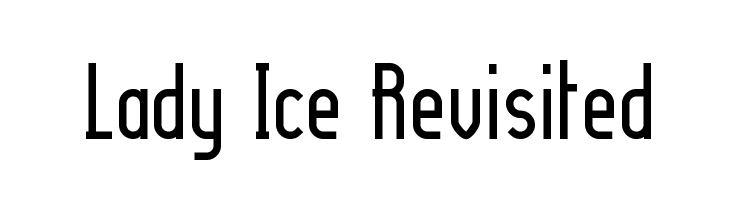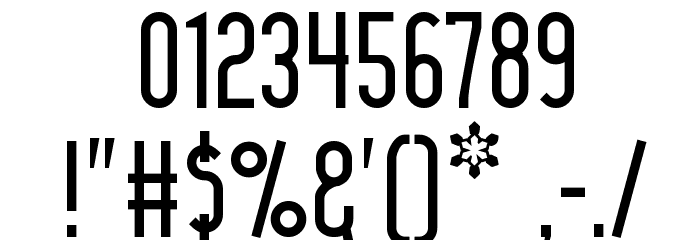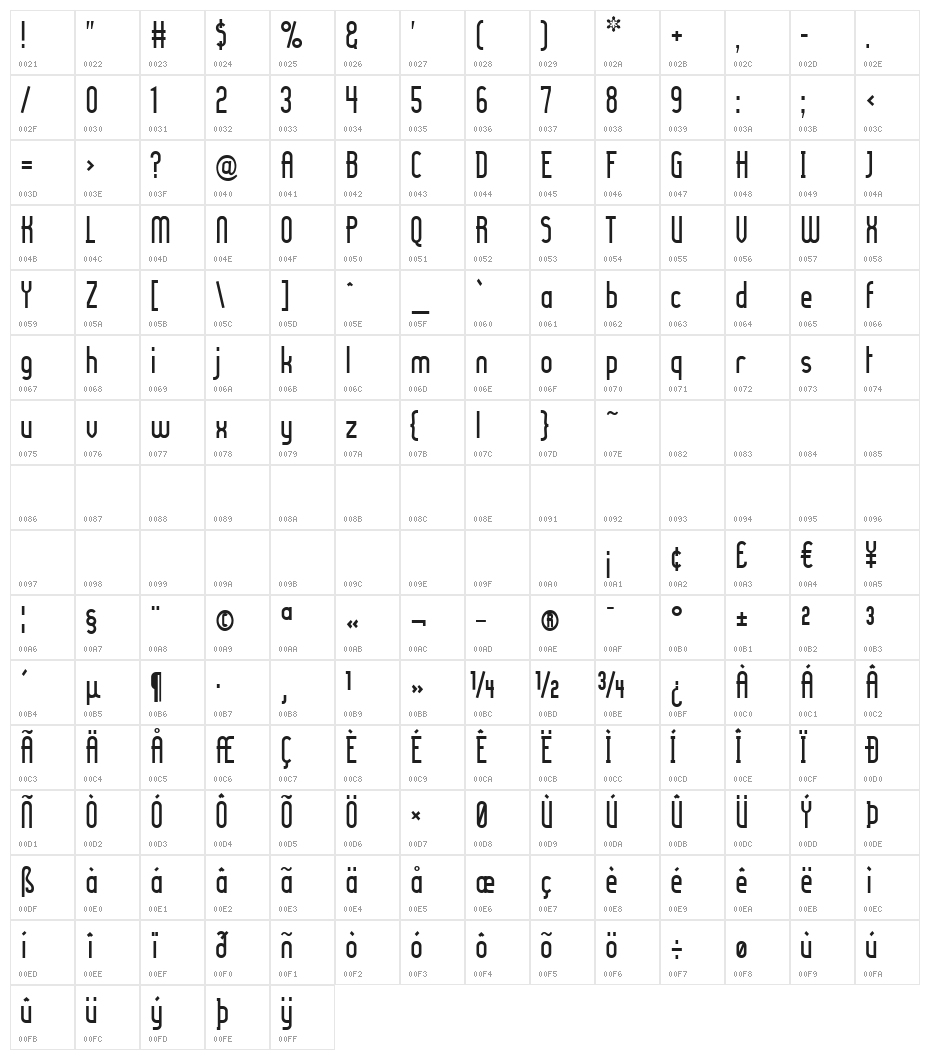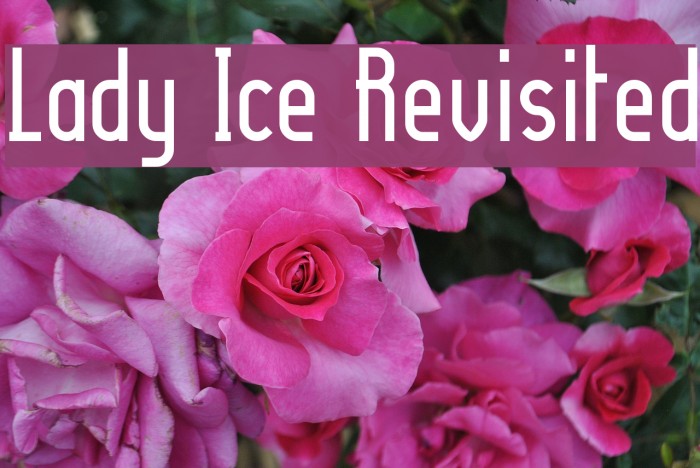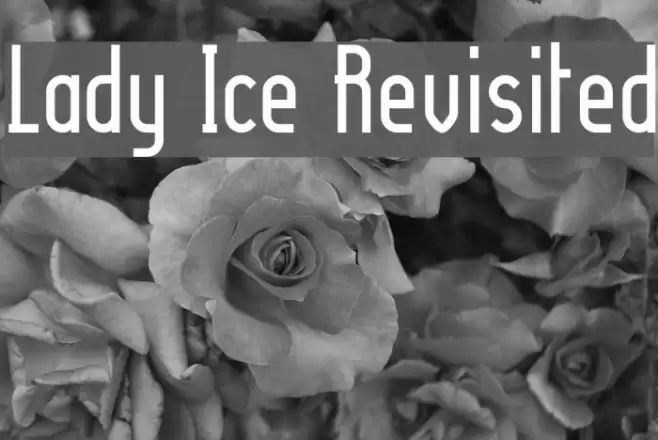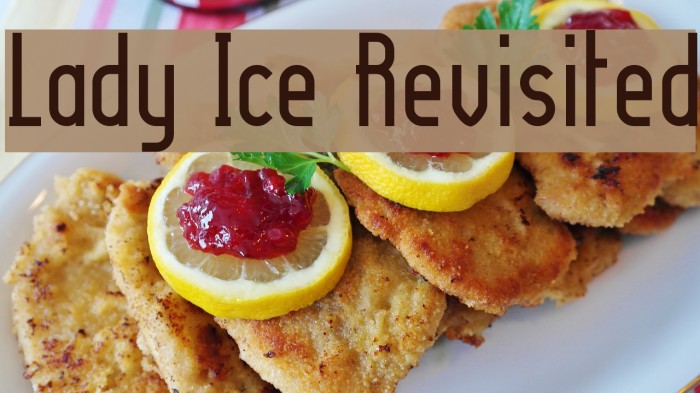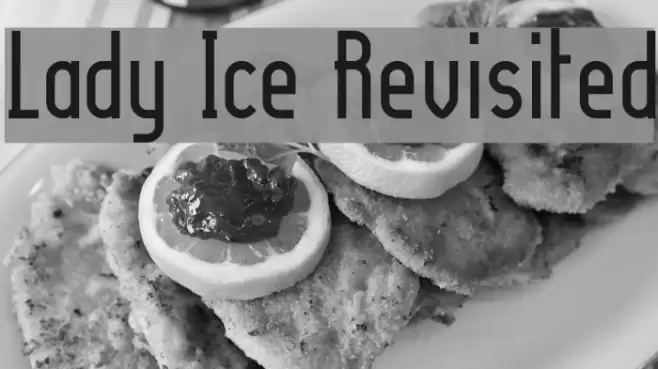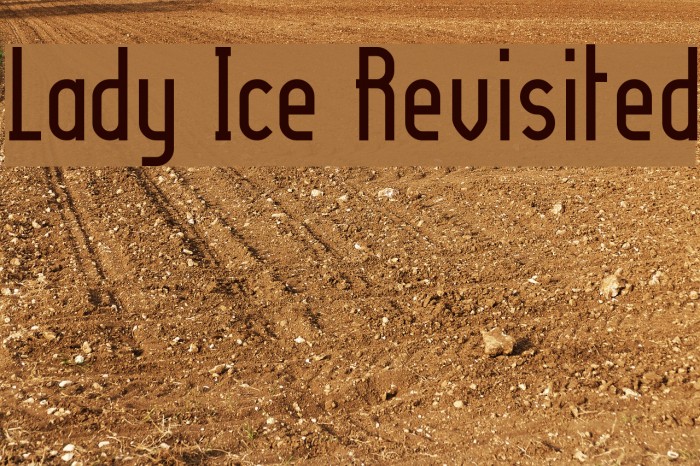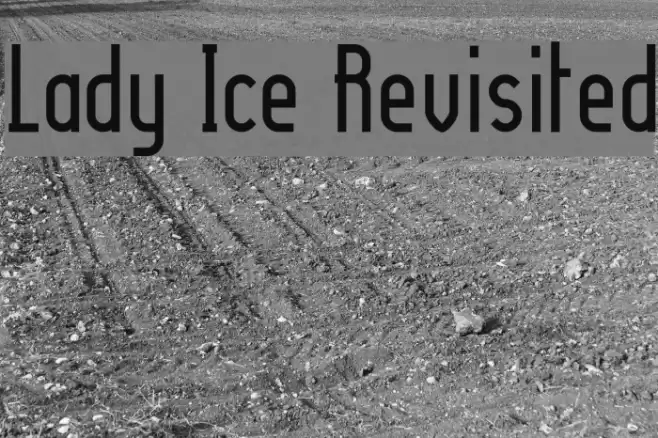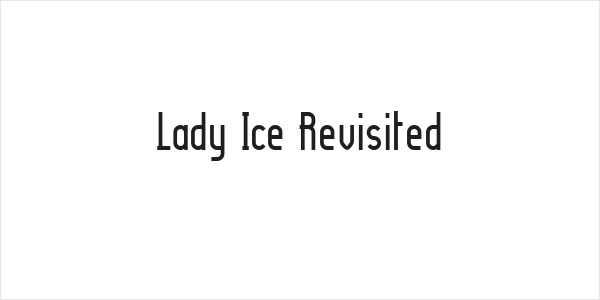
Lady Ice Revisited Font
Lady Ice Revisited Description
This font features a modern and sleek design with elongated, narrow characters that convey a sense of elegance and sophistication. The uppercase and lowercase letters maintain a consistent height, contributing to a uniform appearance. The numerals are clean and straightforward, matching the overall aesthetic. Special characters are distinct and well-integrated, ensuring readability. The font's geometric structure and minimalistic style make it suitable for contemporary design projects.
| Proposed Projects | Ideal for branding, editorial design, and digital interfaces where a modern and clean look is desired. |